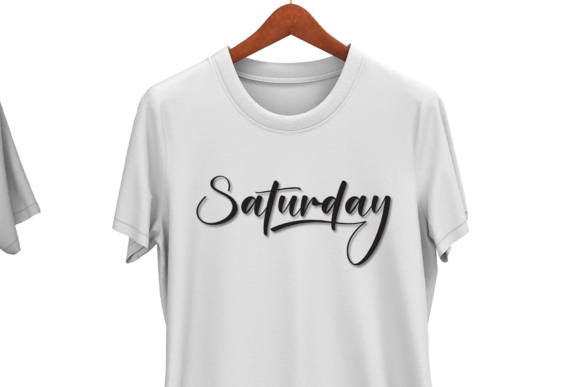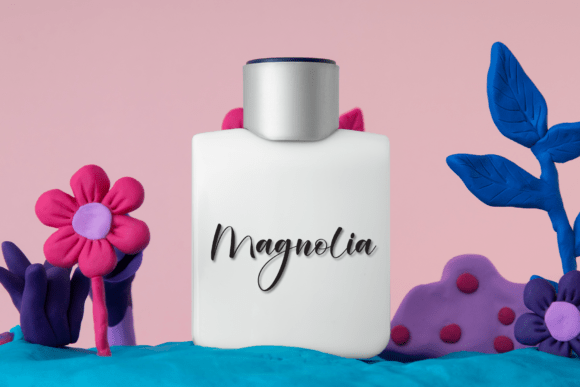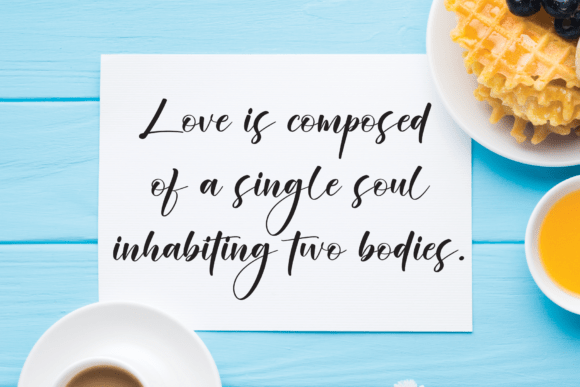
Introduction to Planing Font
Have you ever been brainstorming ideas for a creative project, and the perfect font suddenly pops into your head? That’s exactly what happened to me when I stumbled upon the Planing Font – a stunning script font that’s as elegant as it is versatile. Its fluid brush strokes and dynamic curves evoke the feeling of hand-painted calligraphy, but with a modern twist that’s perfect for today’s designs.
As a designer, I can attest that finding the right font can make all the difference in a project. And with the Planing Font, you can add a high-quality, sophisticated touch to your designs, whether it’s a logo, invitation, or social media graphic. The best part? It’s available for free download, making it an invaluable design resource for any creative project.
Key Features of Planing Font
- High-quality font with transparent background, ideal for creative projects that require a unique design element.
- Includes a large character set with over 1000 glyphs, making it suitable for a variety of creative projects.
- Features a clean and modern design, with a high resolution of 300 DPI, ensuring crisp and clear typography.
- Designed to be highly customizable, with advanced features such as ligatures and contextual alternates.
- Perfect for designers and artists working on creative projects, including digital art, graphic design, and typography.
Honest Review: Planing Font
I recently stumbled upon Planing Font, and I have to say, it’s a great addition to any design enthusiast’s toolkit. As a designer, I’m always on the lookout for high quality, free downloads that can elevate my creative projects.
One of the standout features of Planing Font is its clean and modern aesthetic. The transparent background makes it easy to layer over other design elements, and the font’s versatility shines in a variety of creative projects.
Here are some things that work well about Planing Font: ✨
- Easy to customize and manipulate
However, I do have some reservations about Planing Font. ⚠️
- The font’s limited character set may be a drawback for some designers
- The font’s consistency can be affected by the design software used
Overall, I’d say Planing Font is a solid design resource that’s worth checking out. Its modern aesthetic and high quality design make it a great addition to any creative project. While it may have some limitations, I believe the benefits outweigh the drawbacks.
Tips for Getting the Most Out of Planing Font
For the best results, use Planing Font with a transparent background and a clear design concept. This will help your text stand out and add a professional touch to your project.
Planing Font is perfect for a variety of projects, including logos, posters, business cards, and more. Its clean and modern design makes it an excellent choice for any creative project.